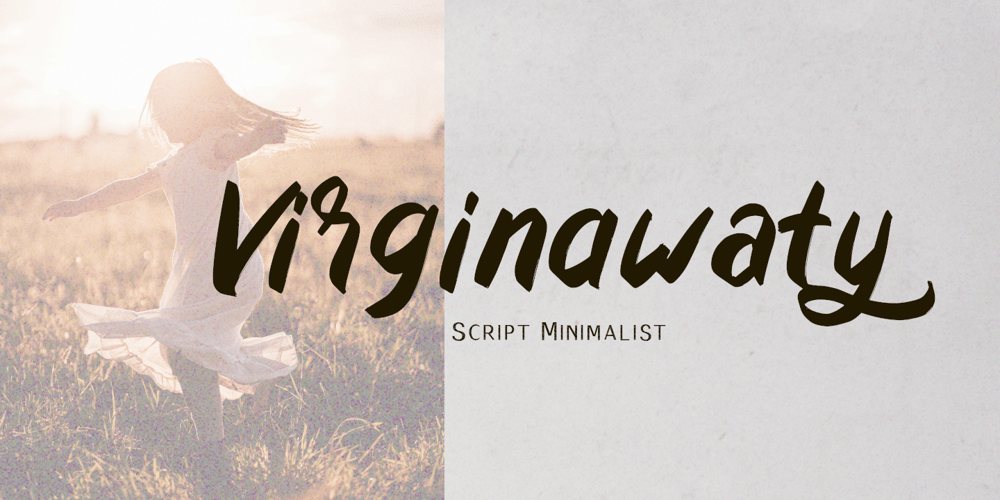
Virginawaty Font Family was designed by Syukur Setiyadi and published by SSI.Scraps. Virginawaty contains 1 styles and family package options. Utilizing a handwritten medium font accompanied by alternate characters can add a touch of sophistication and elegance to written content. The incorporation of alternate characters brings a unique flair to the design, enabling more personalized and customized text. This font style is well-suited for projects that demand a blend of professionalism and artistry, such as branding materials, invitations, or editorial layouts. By integrating handwritten medium font with alternate characters, one can craft visually striking and memorable pieces that distinguish themselves from the commonplace, leaving a lasting impression on the audience.